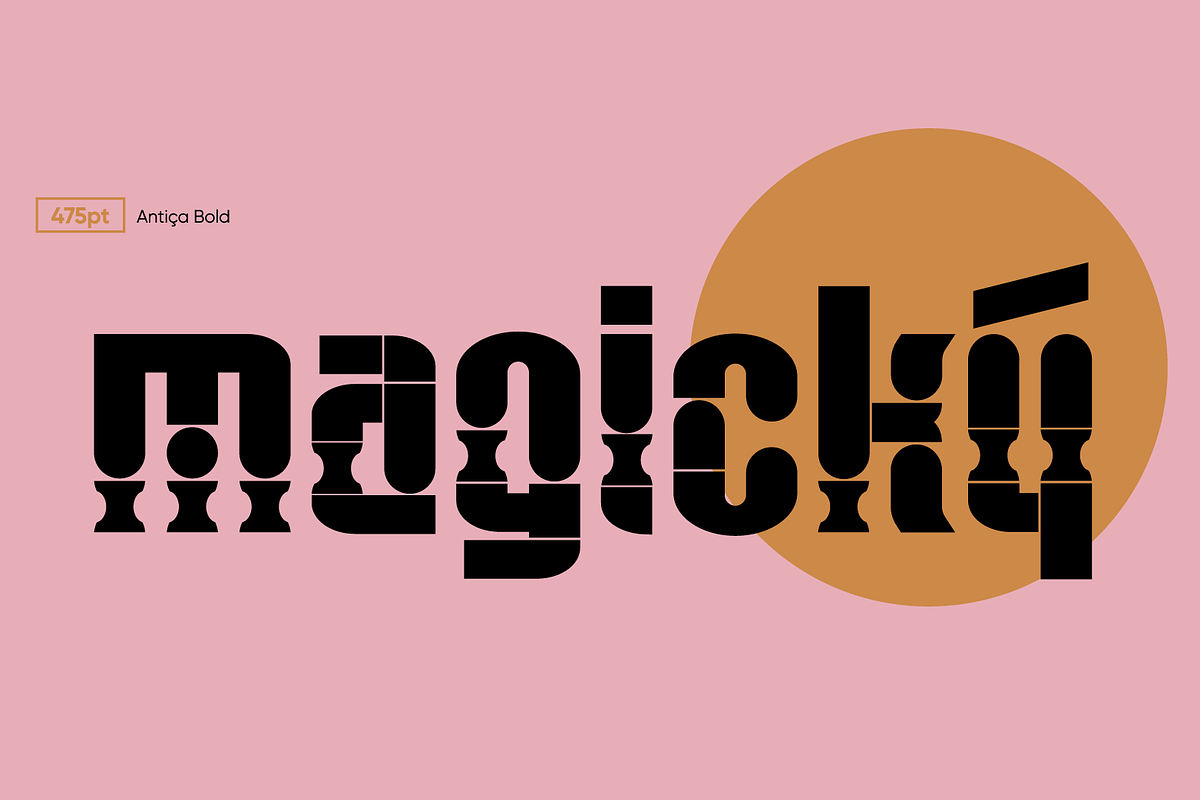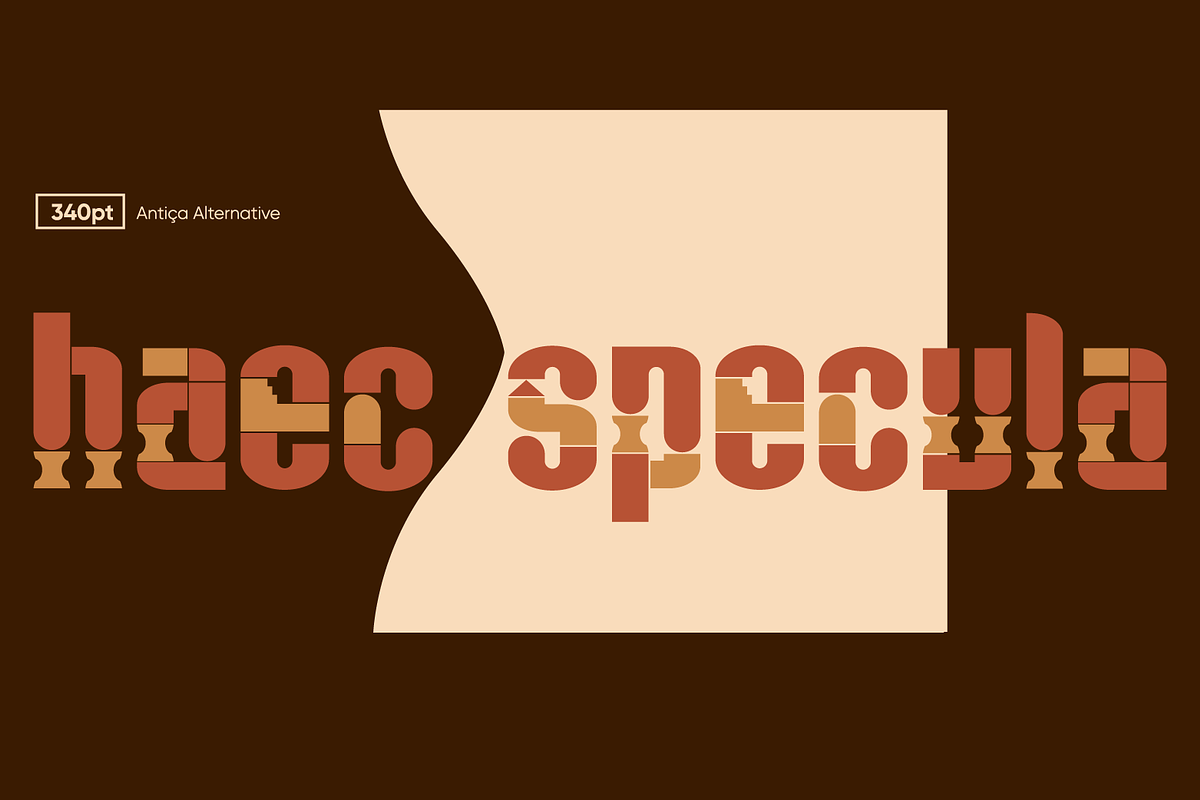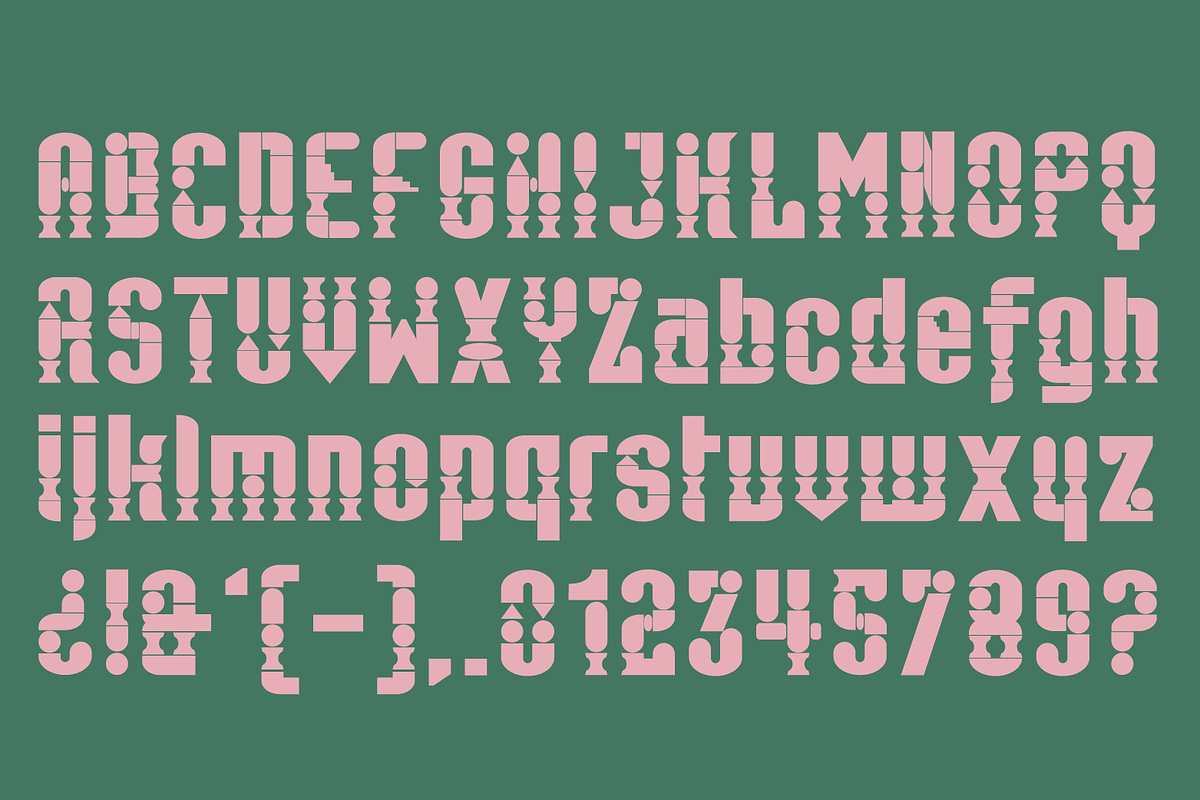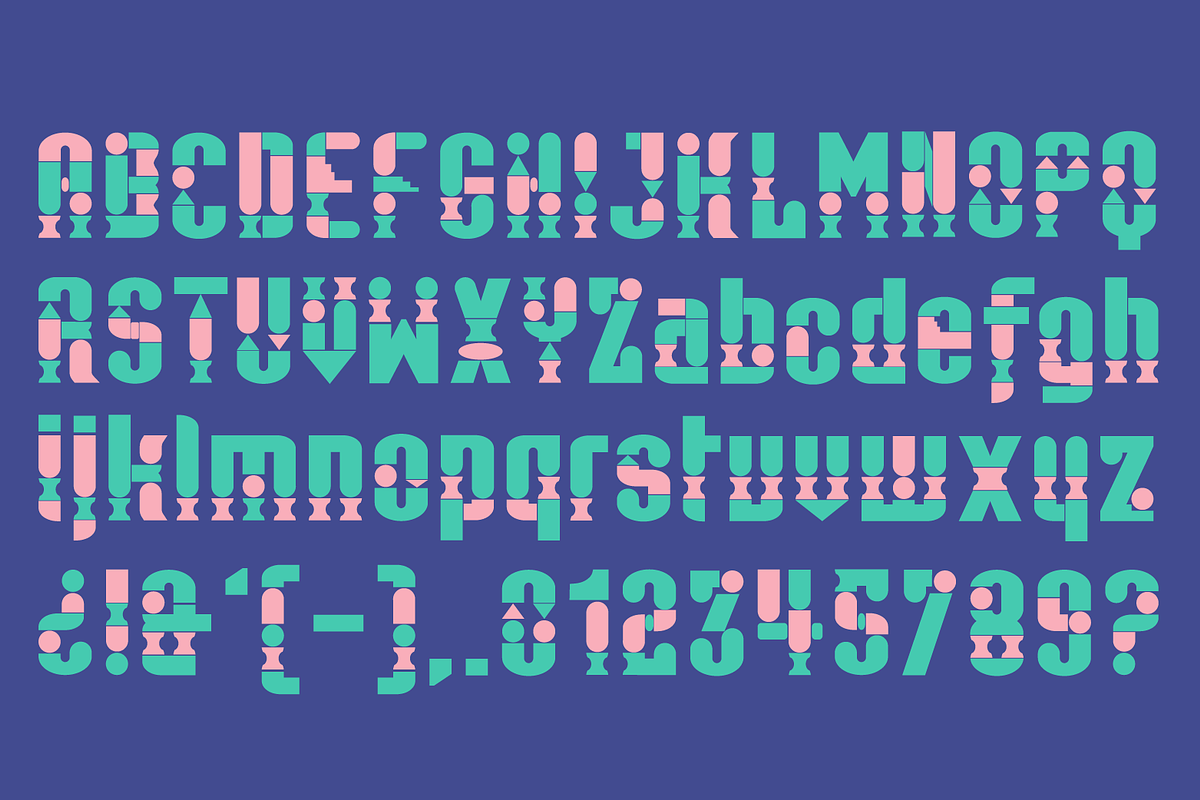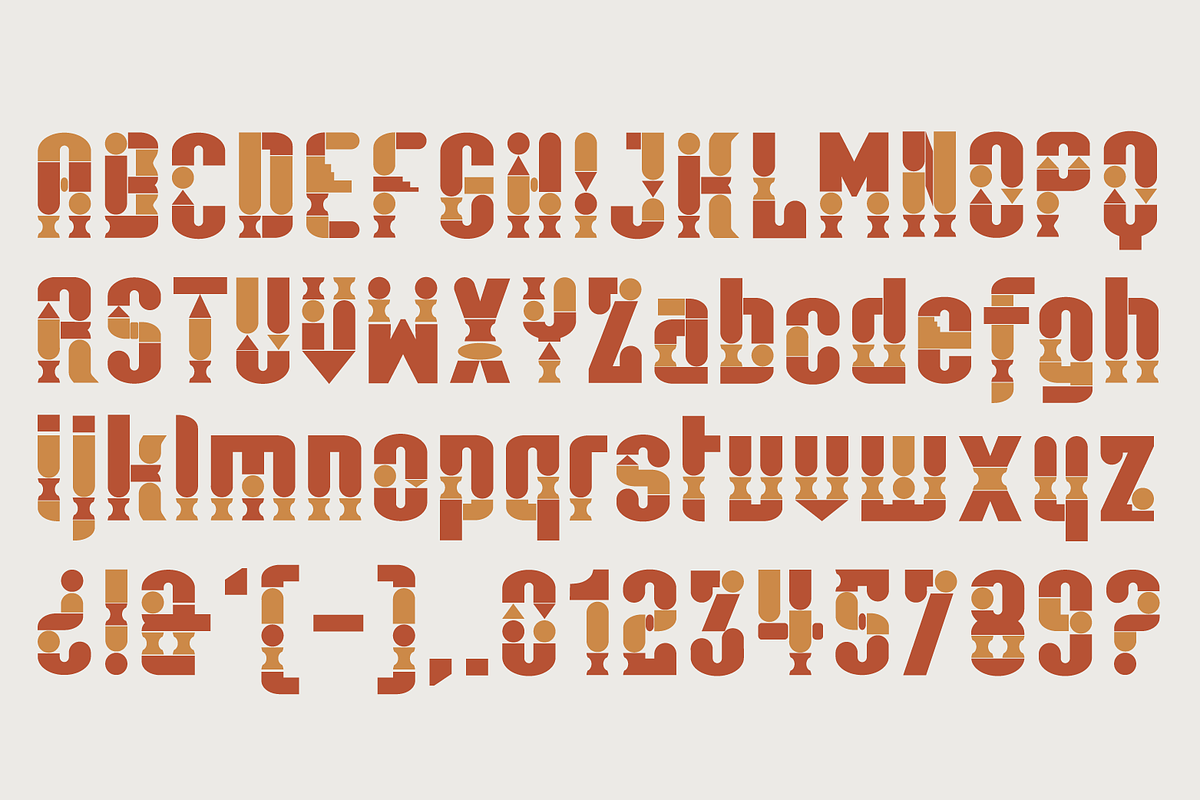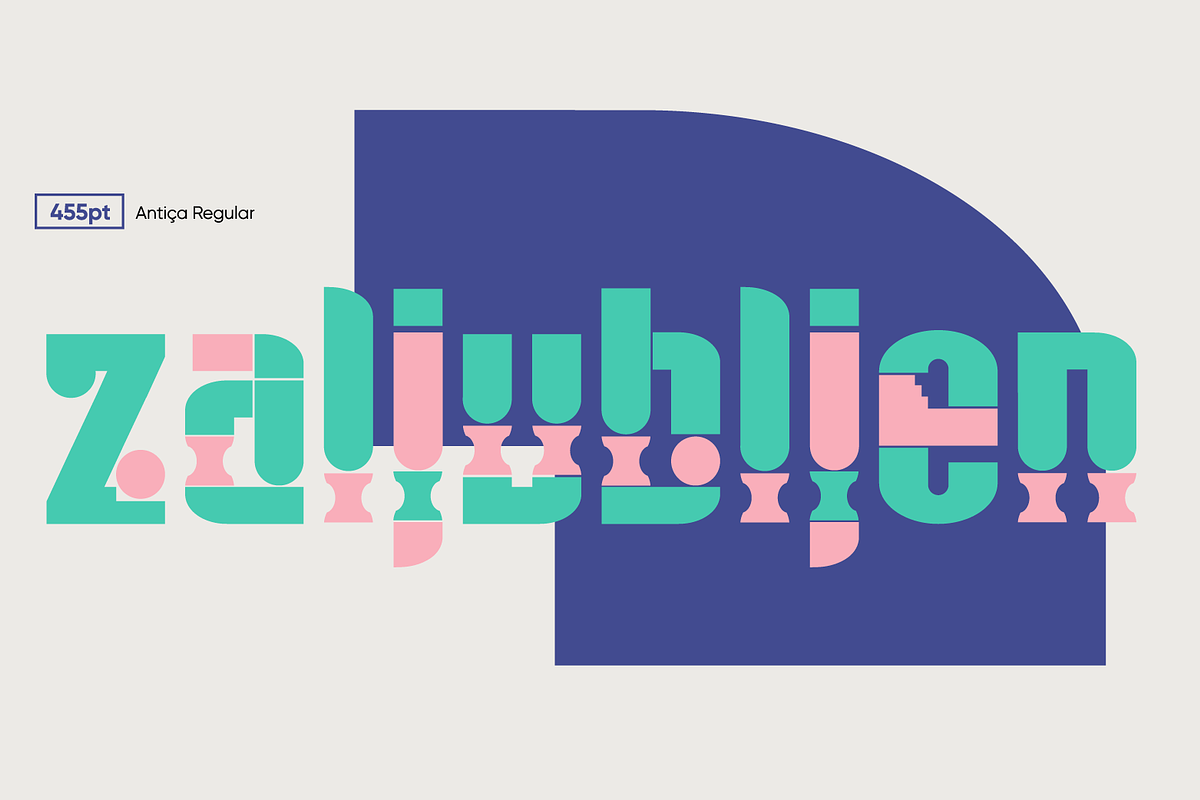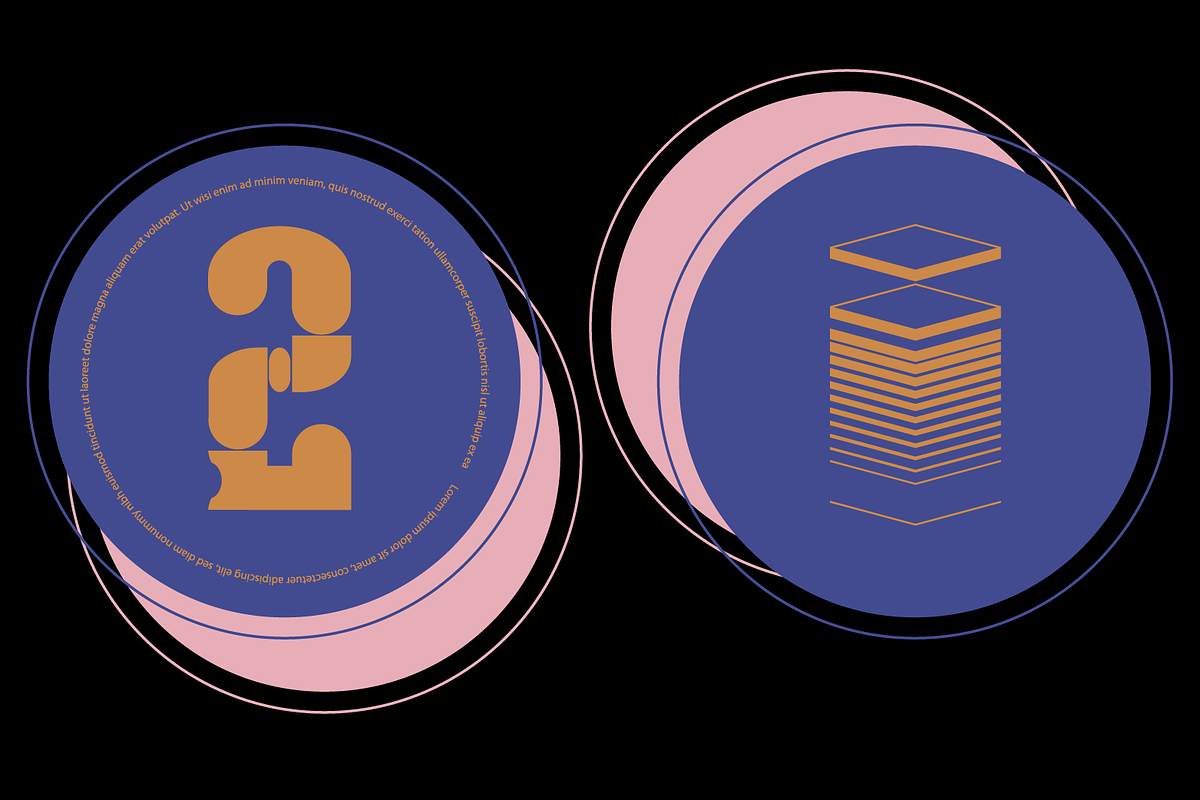
Antica Font
Antiça Color Font SVG
Typography made from geometric forms, includes 3 variables (Regular - Alternative - Bold). Beautiful to make different types of pieces, colorful and unique.
- Antiça Color Font SVG Typography made from geometric forms, includes 3 variables (Regular - Alternative - Bold).